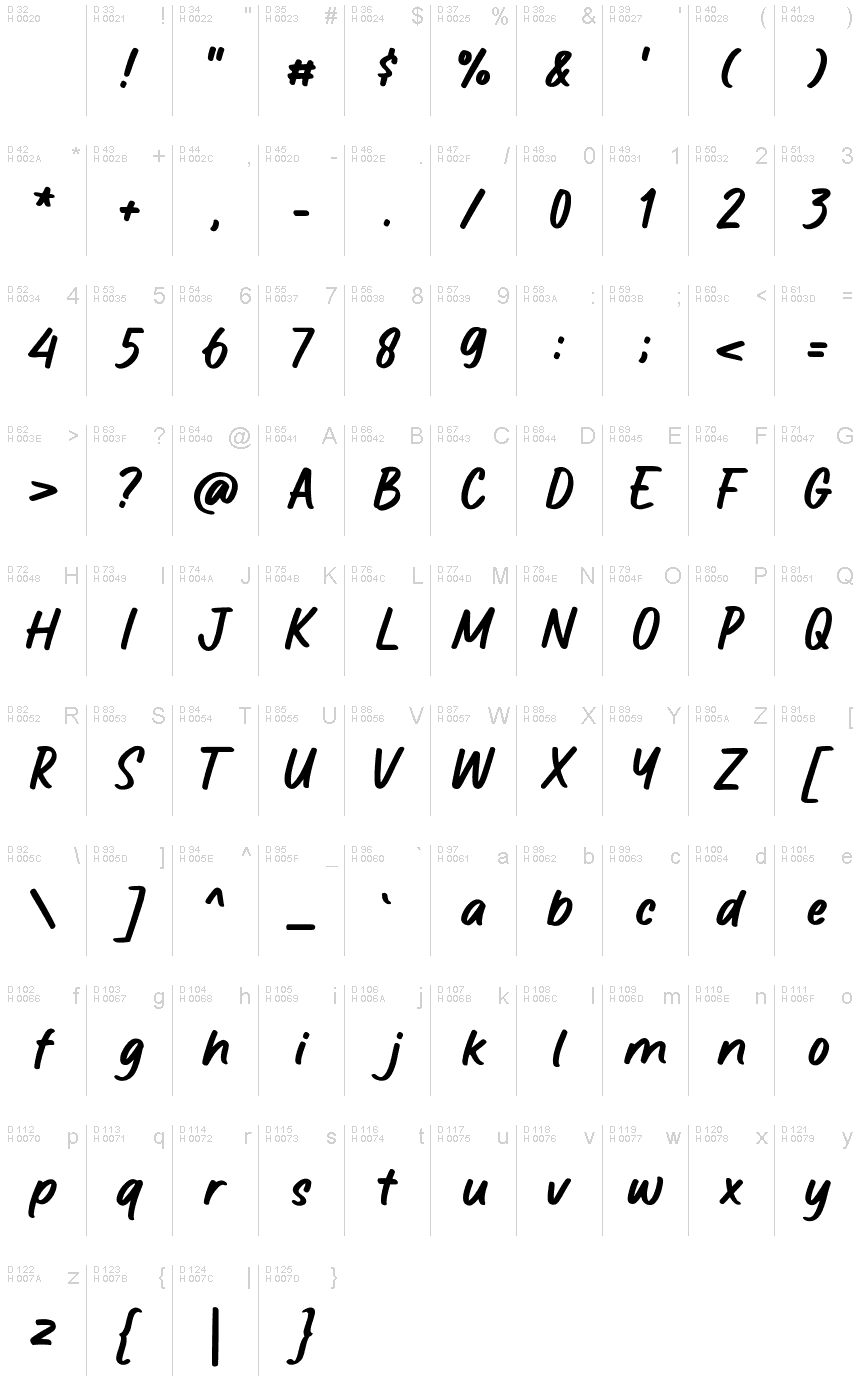
Greathy
Meet Greathy, the vibrant and playful marker font by Allouse Studio. Designed with a hand-drawn feel, this font brings a unique and personal touch to your projects. Its bold strokes and irregular shapes make it perfect for branding, packaging design, social media posts, and even children's books. Let your creativity run wild with Greathy – use it to add personality and charm to any project that needs a touch of whimsy. With its ability to evoke a sense of fun and spontaneity, Greathy is sure to become your go-to font for any project that requires a little bit of playfulness.
Allouse Studio